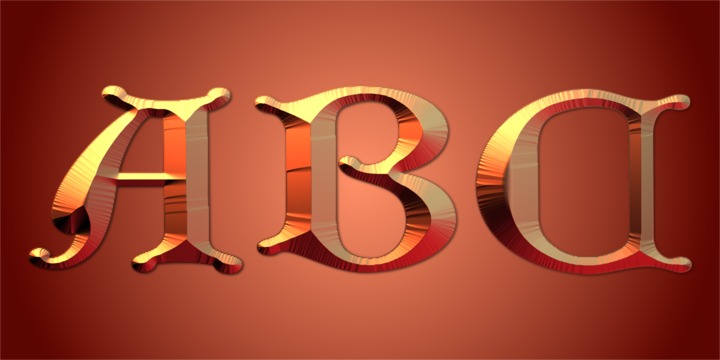
• Gothic Initials Seven
Gothic Initials Third Set was inspired by the beautifully-written gothic scripts of medieval scribes.
Gothic Initials Third Set is composed of 3 fonts, Gothic Initials Seven, Gothic Initials Eight, and Gothic Initials Nine.
Each font contains the upper case letters A through Z under both the character set and shift+character set. These fonts are intended for use as initials, monograms, drop caps or wherever fancy letters are desirable.